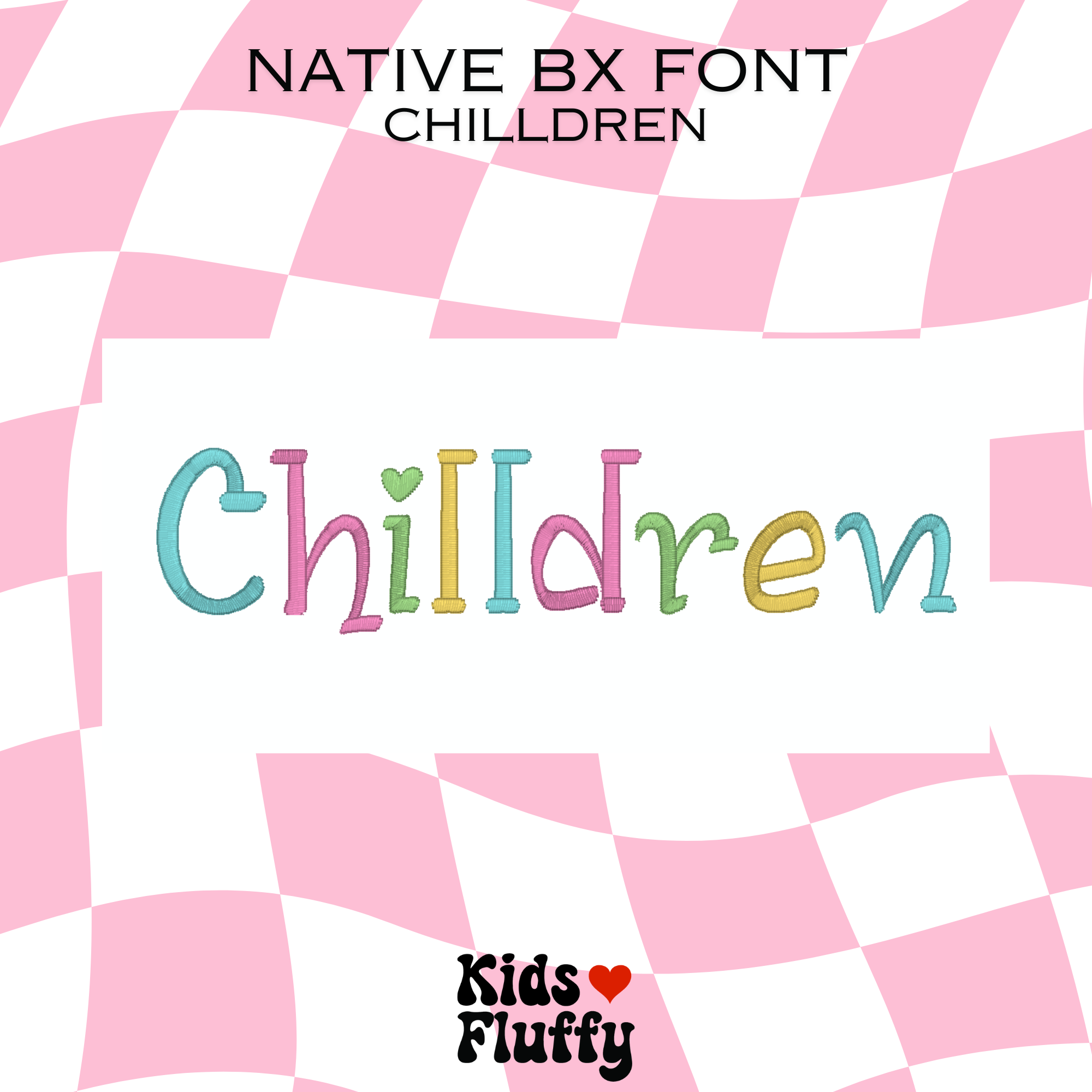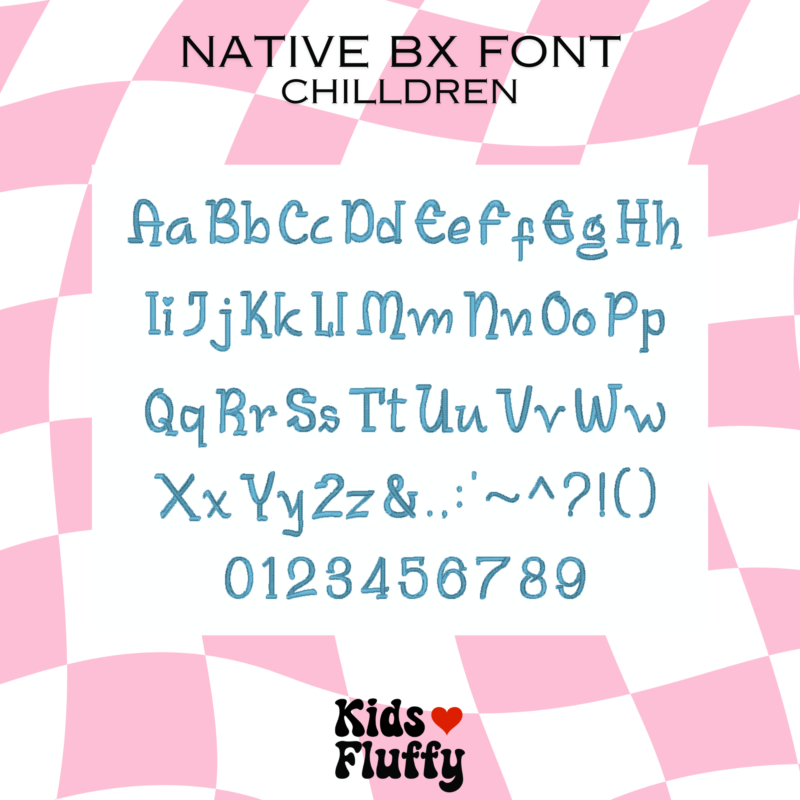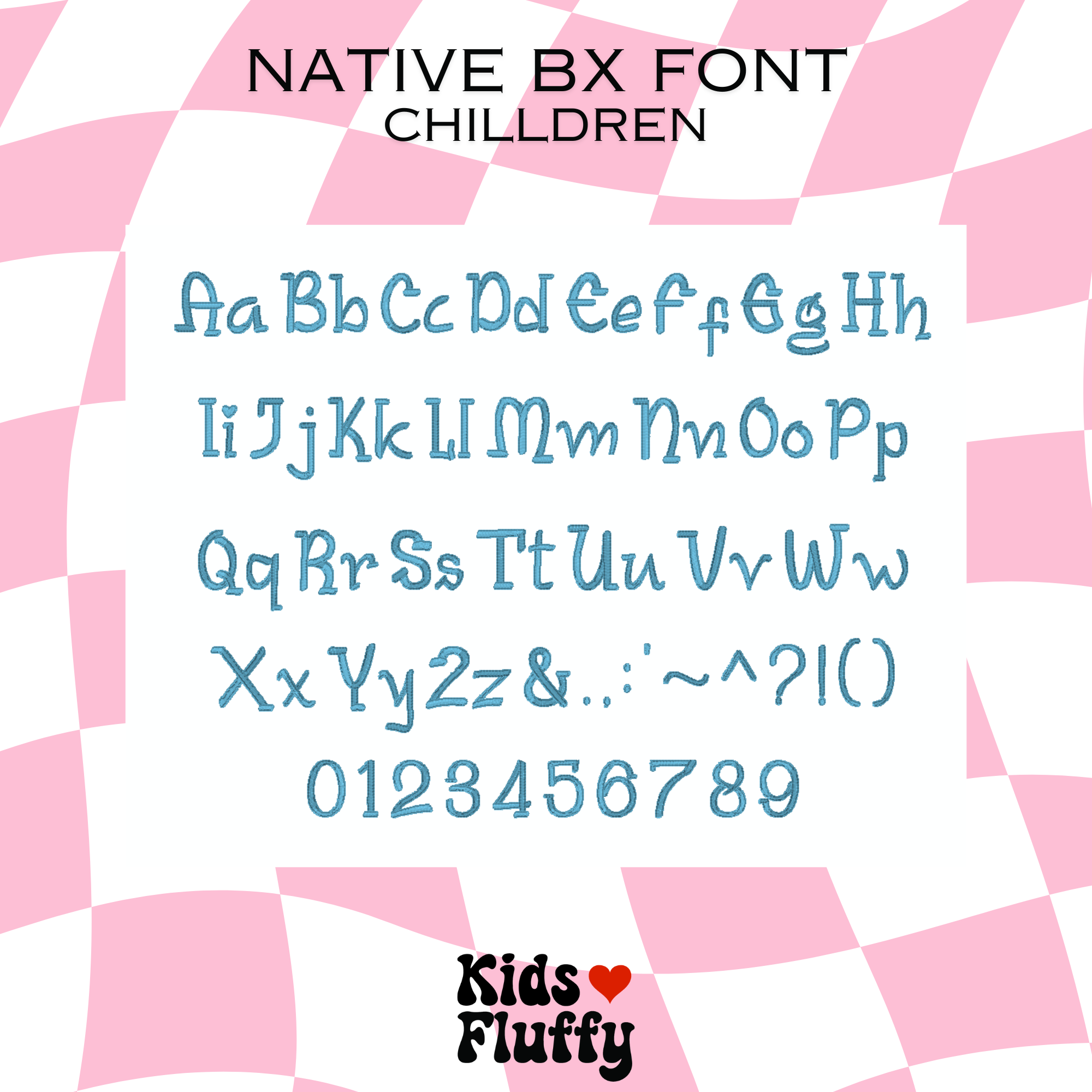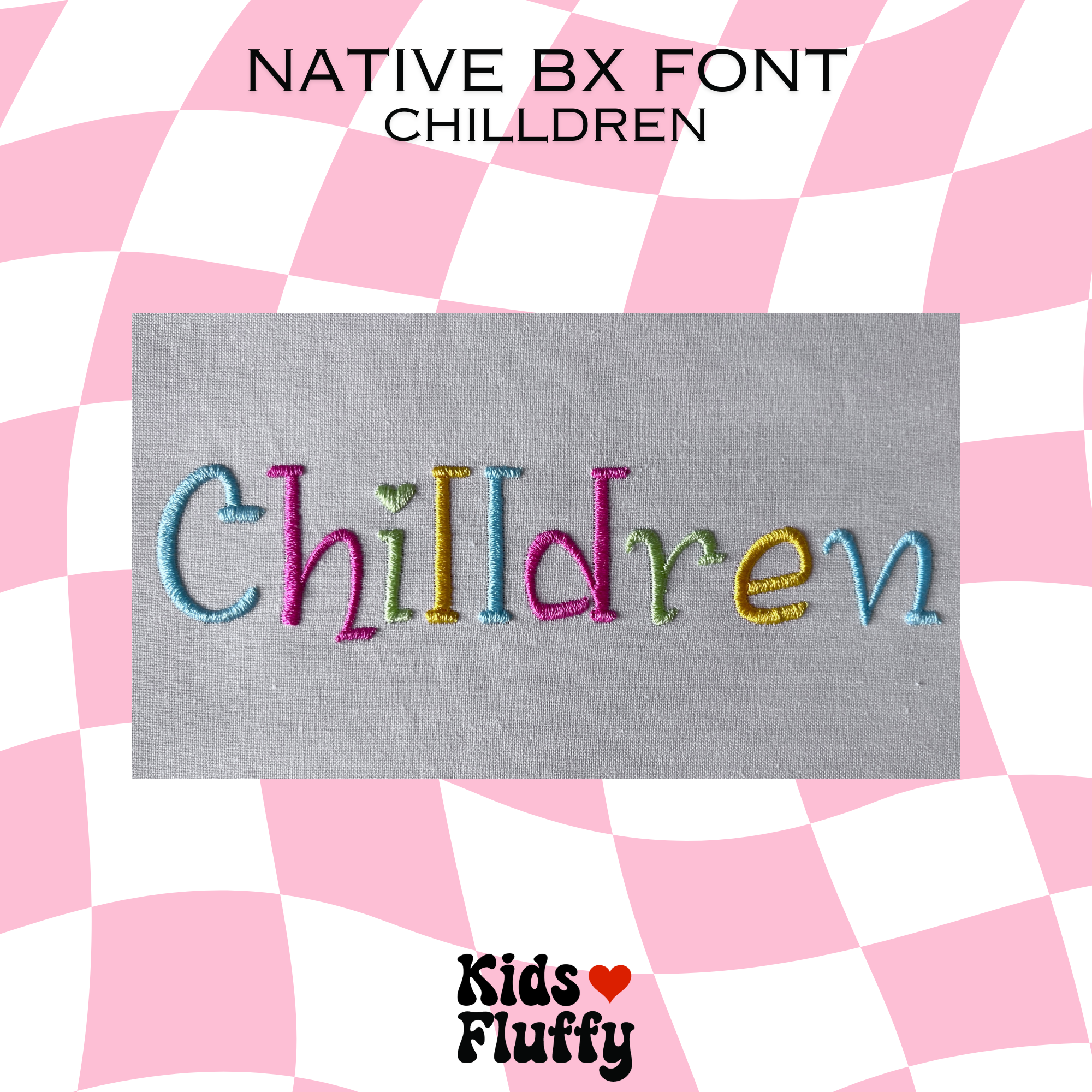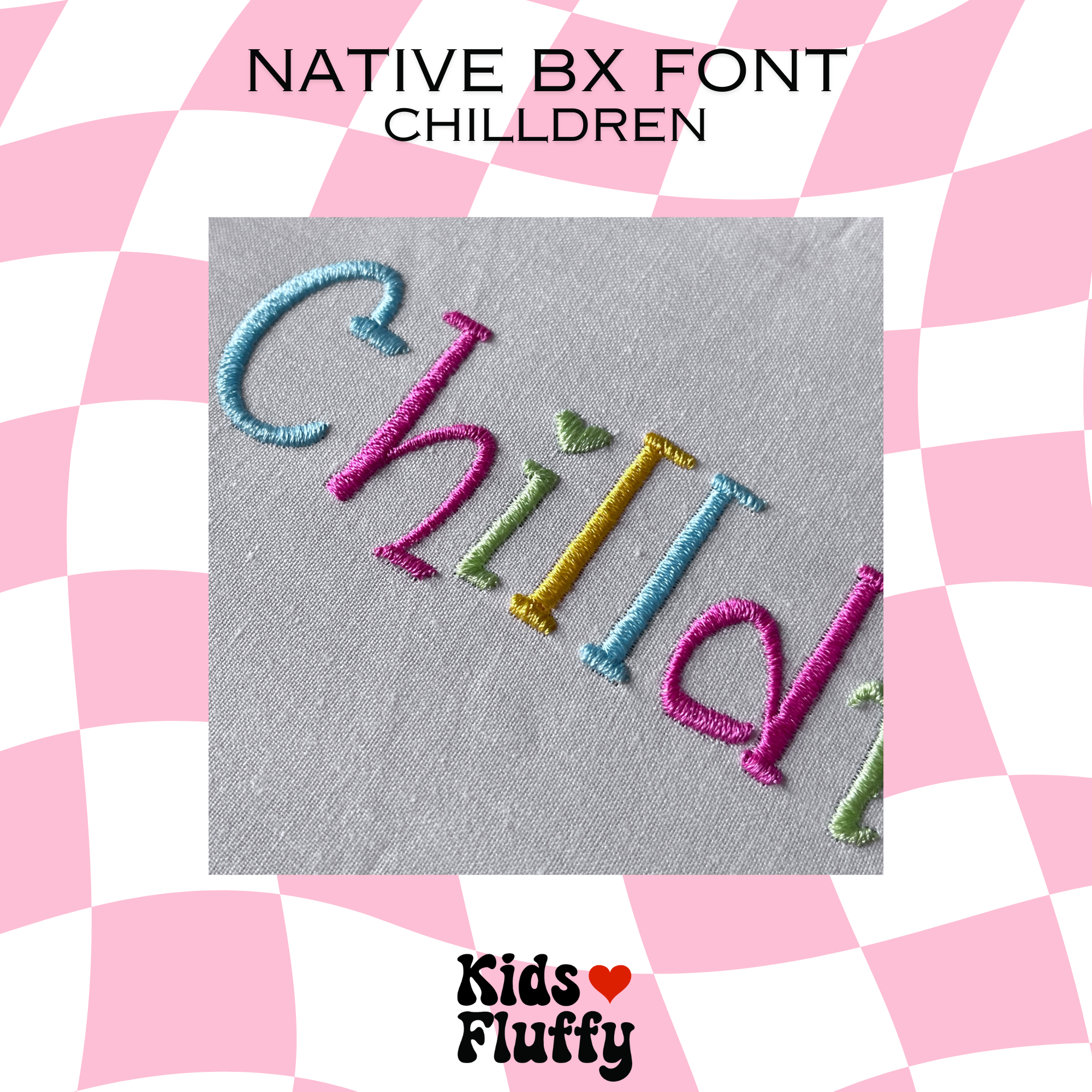
Chilldren Native BX Font
Chilldren BX Font is a clean, playful embroidery alphabet designed for children’s projects, baby gifts, and school-themed stitching. Created for Embrilliance software, it’s ideal for bold name lettering and personalized designs.